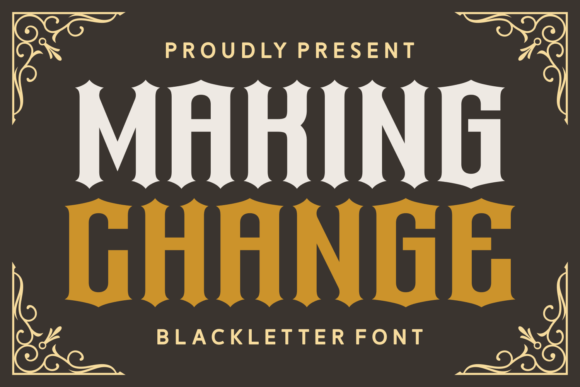
Introducing Making Change Font, the epitome of elegance and style in the world of blackletter fonts. Designed by the renowned Creative Fabrica Fonts, this extraordinary typeface is here to revolutionize your creative projects and leave a lasting impression on your audience.
With its captivating and unique aesthetic, Making Change Font stands out from the crowd, instantly adding a touch of sophistication to any design. Whether you're working on a vintage book cover, a logo, or an invitation, this font is guaranteed to elevate your work to new heights.
Imagine the power of your words beautifully intertwined with the intricate curves and sharp angles of Making Change Font. Each character is meticulously crafted to exude a timeless elegance that harks back to the golden age of typography. Its blackletter style evokes a sense of tradition and heritage, perfect for projects that require a touch of nostalgia.
But Making Change Font is not just about aesthetics; it's also incredibly versatile. Its wide range of uppercase and lowercase characters allows you to experiment with various combinations and styles, giving you the freedom to create truly unique and personalized designs. Let your imagination run wild as you explore the endless possibilities this font has to offer.
One of the most remarkable features of Making Change Font is its ability to evoke emotions and captivate your audience. The bold and powerful strokes command attention, while the delicate details add a touch of refinement. Your words will come alive, engaging your readers and leaving a lasting impact that goes beyond the surface.